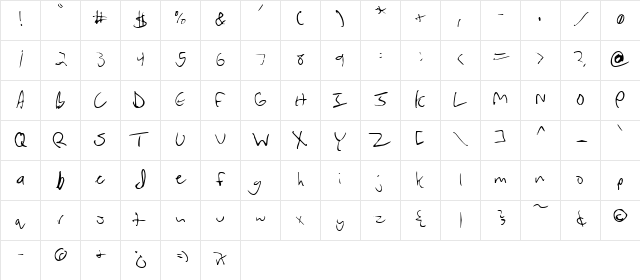
WolfieBoy Regular
Foundry: Wolf￿
Designer: Wolf(Bill Bussone)
Design Context for WolfieBoy
WolfieBoy is a composed and adaptable typeface that performs quietly and consistently across a wide range of design contexts.